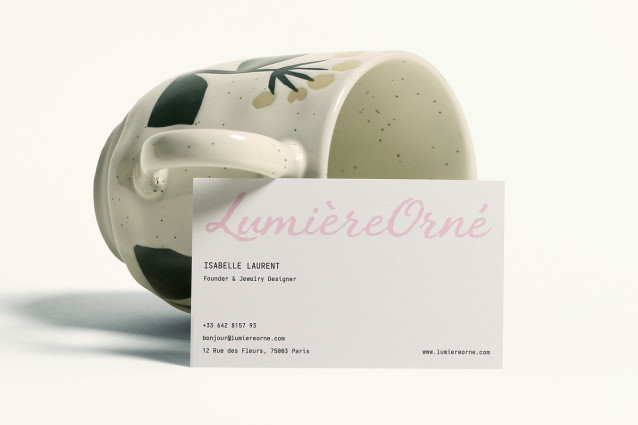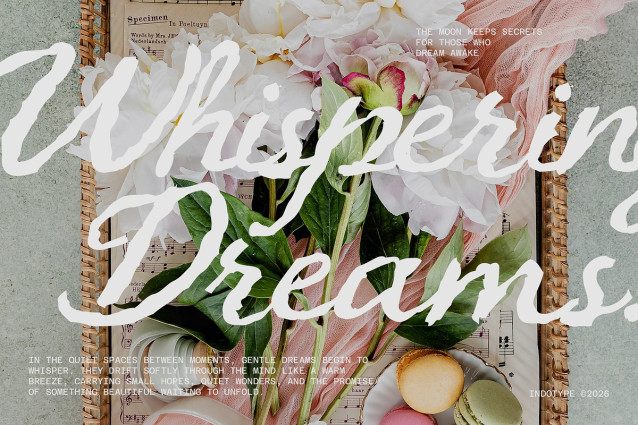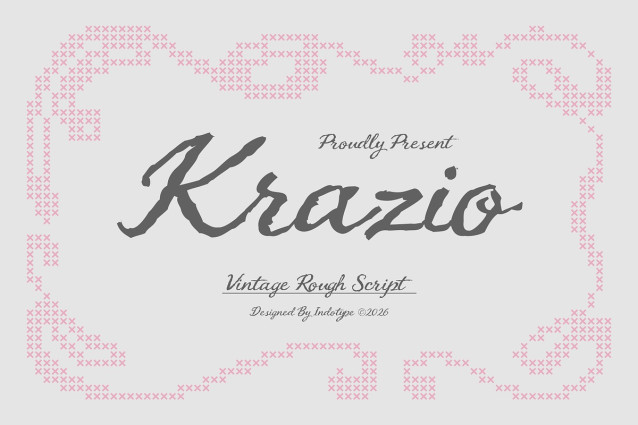
IT Krazio Font
IT Krazio Font is a vintage rough script typeface that captures the raw, expressive energy of hand-lettered signage from a bygone era. Designed by Indotype, Krazio channels the spirit of mid-century craft culture — bold brush strokes with deliberate imperfections, ink-worn edges, and the unmistakable warmth of a human hand at work. It’s a typeface that tells a story before a single word is read.